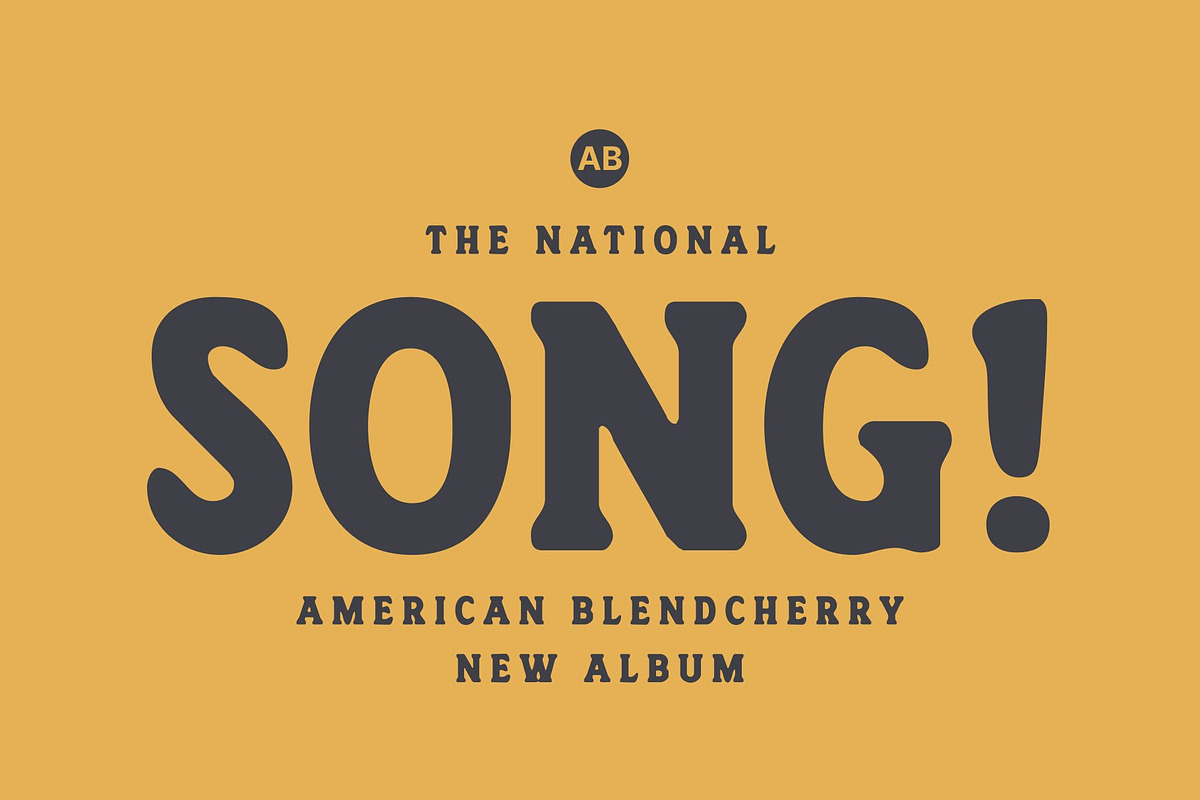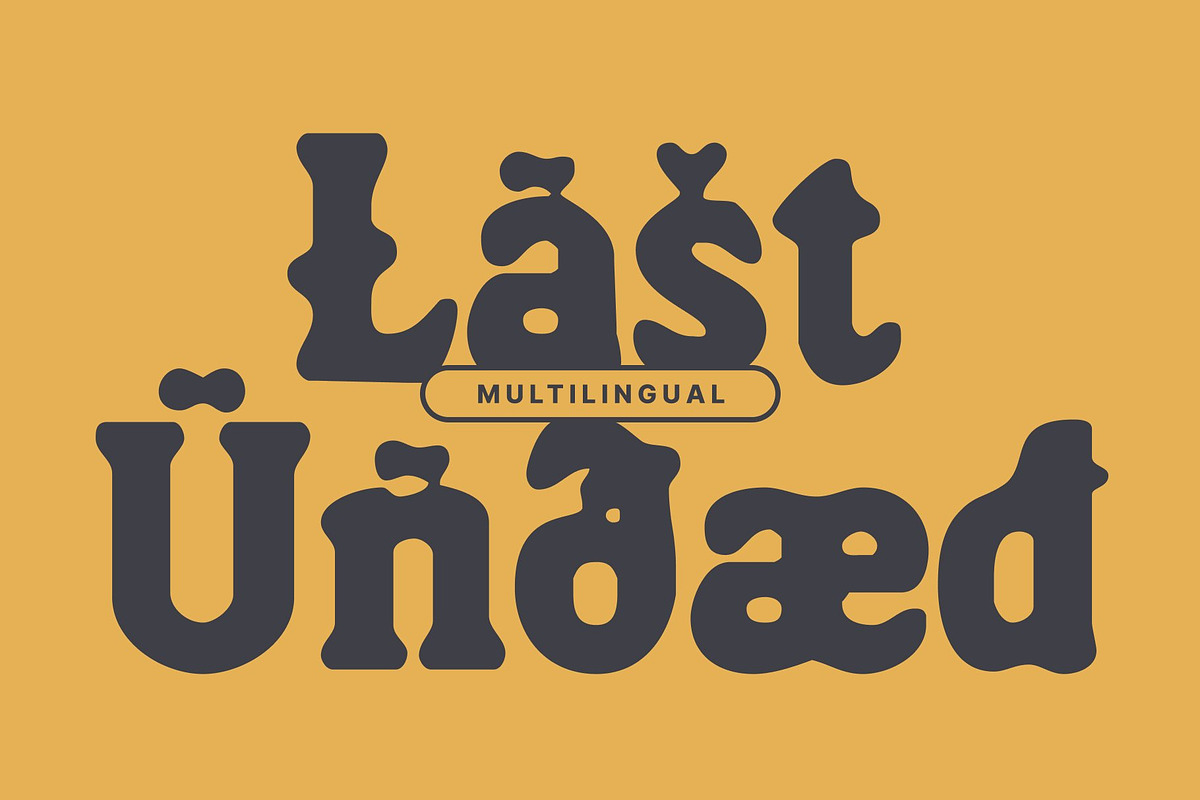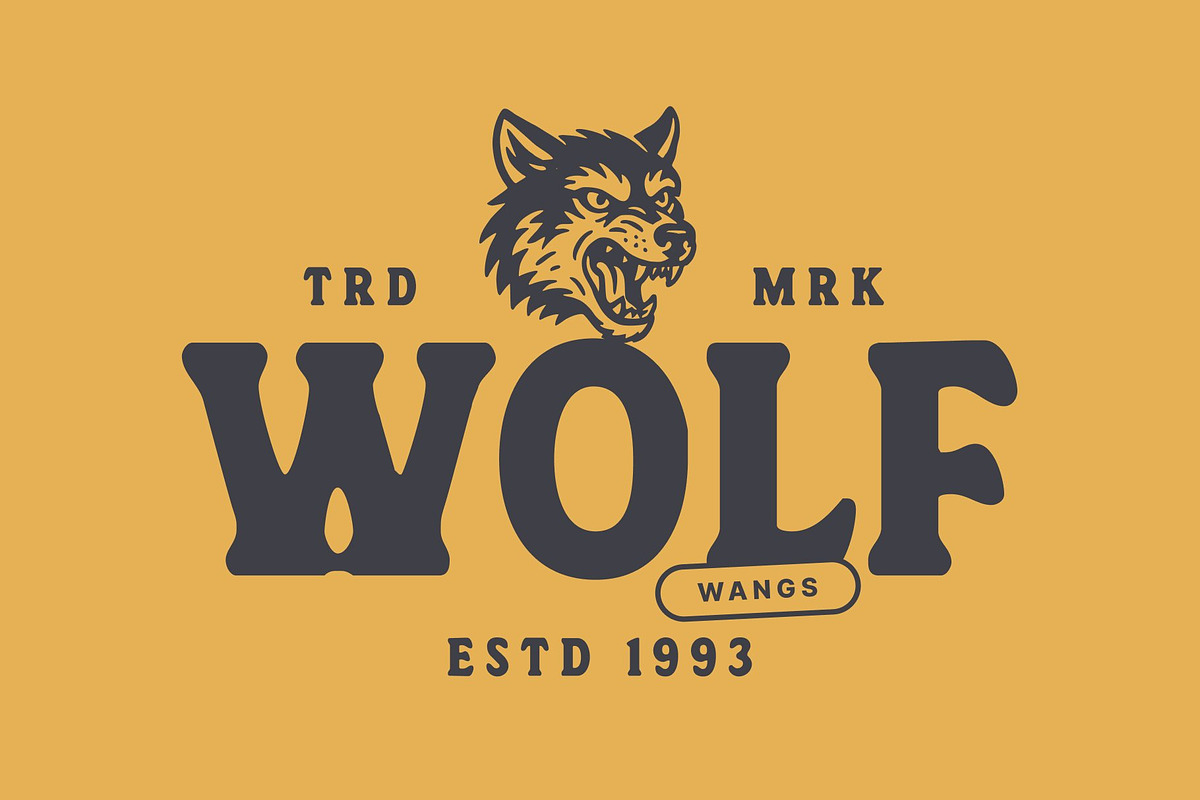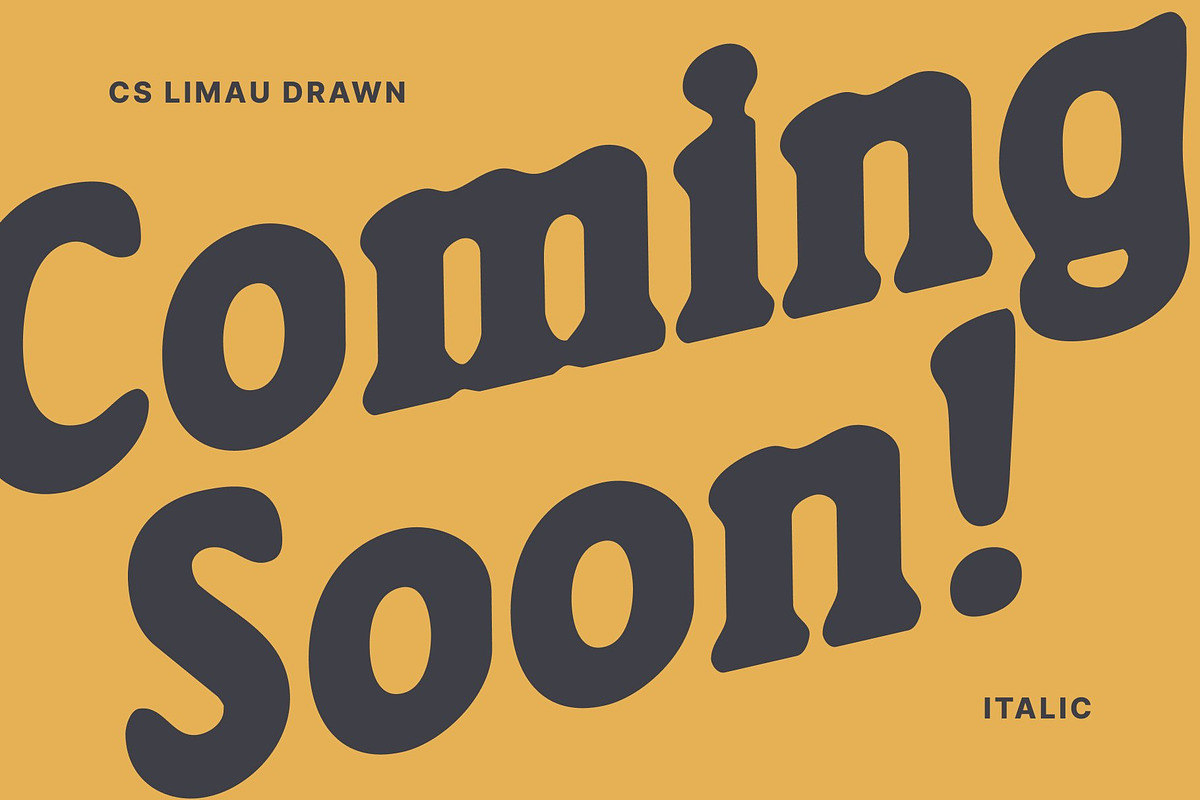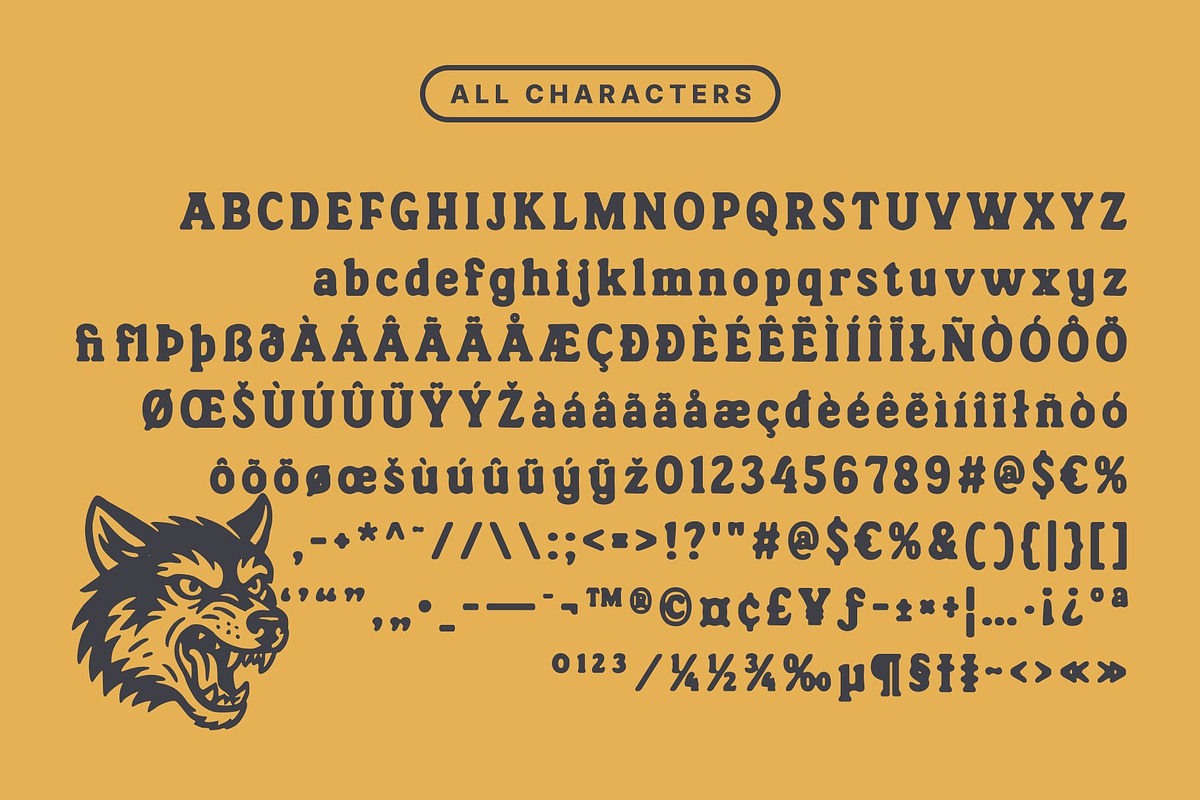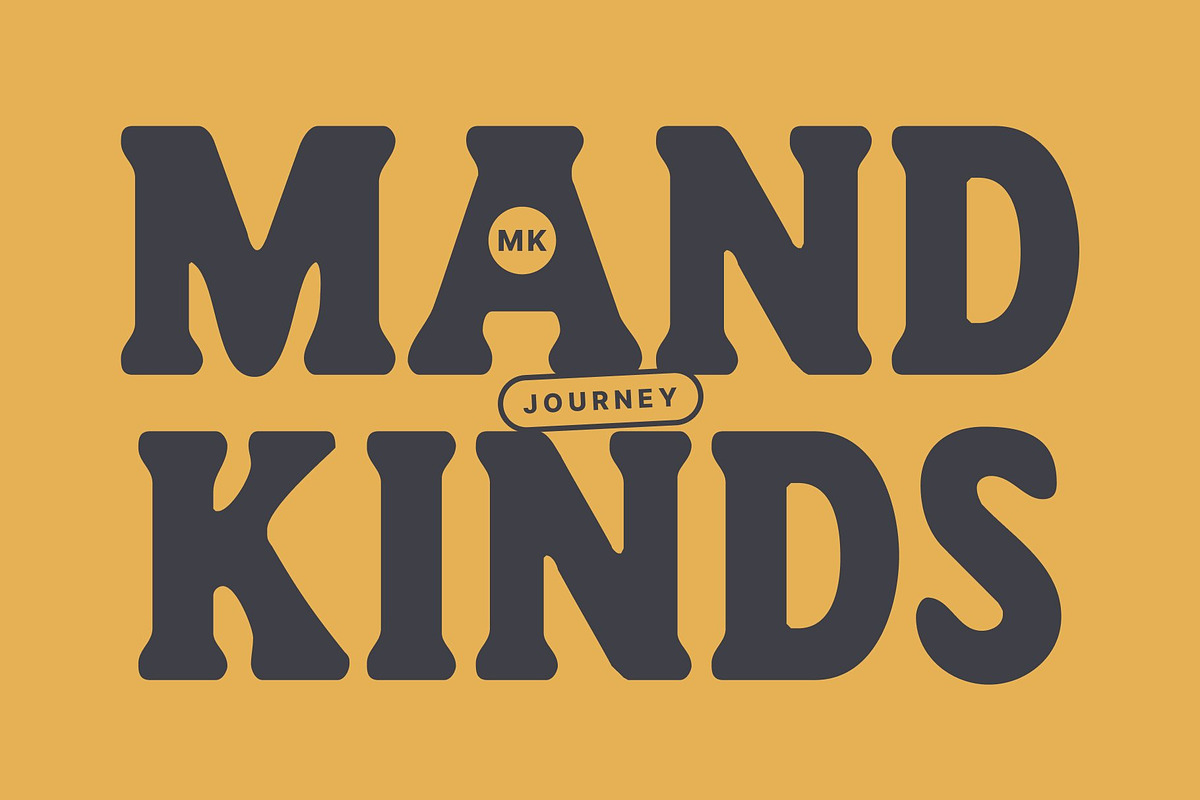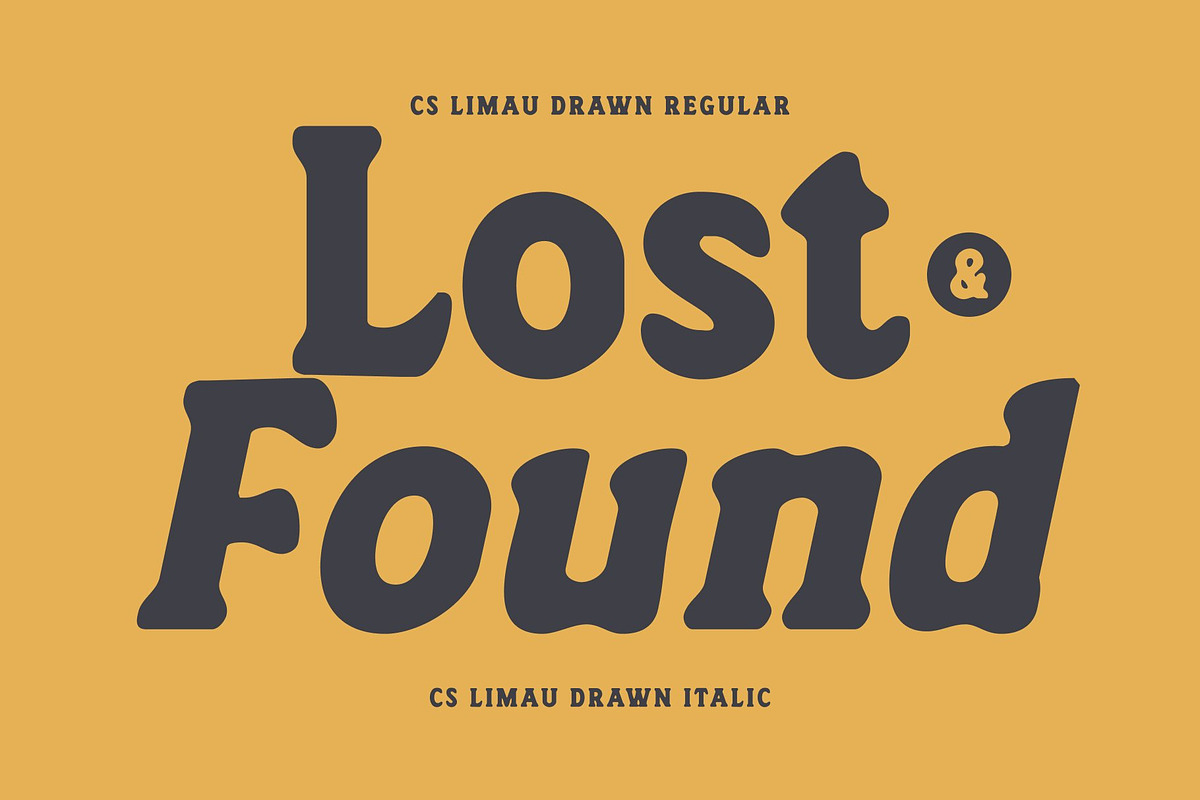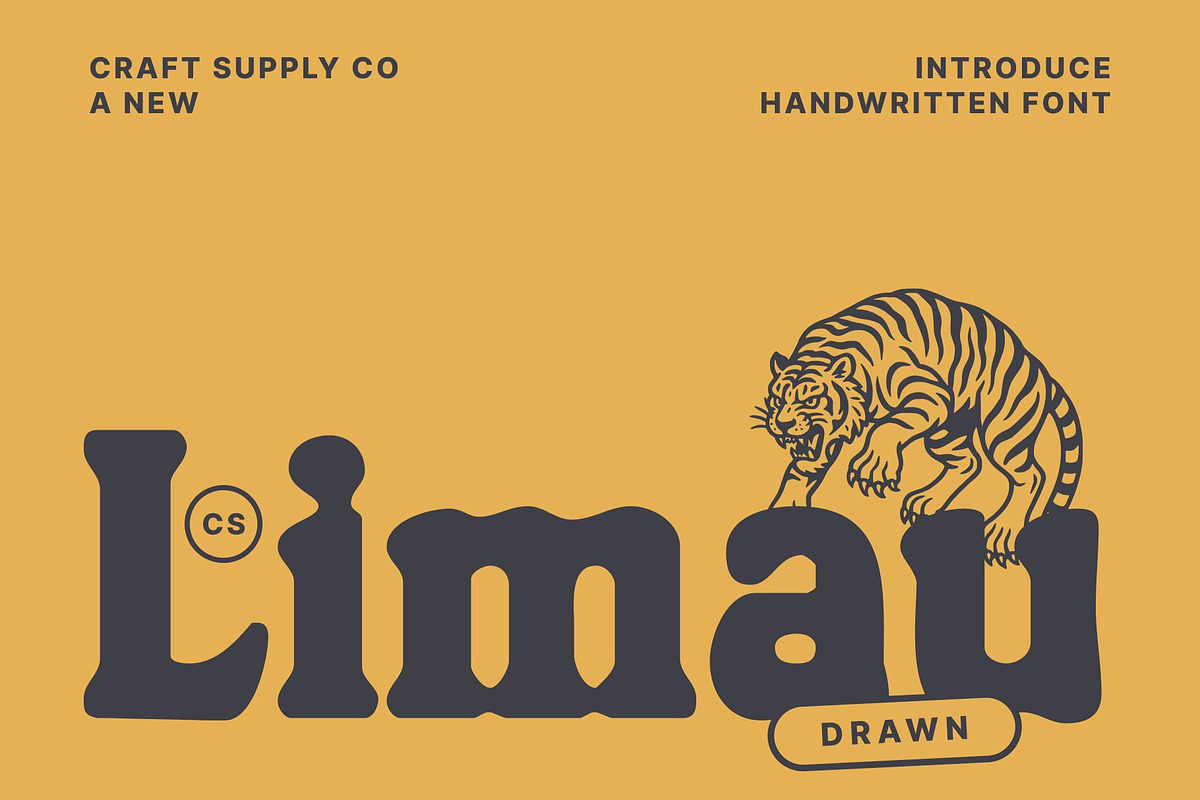
CS Limau Drawn
CS Limau Drawn – Retro Inspired Font with Expressive Handmade Charm
Timeless Retro Design with Playful Energy This is a retro serif font that captures the nostalgic charm of classic typography. Its bold, dynamic shapes evoke the visual spirit of past eras, giving designs a lively, energetic feel that is both memorable and engaging.
Expressive Letterforms with Handmade Texture Enhanced with a drawn effect, this font adds a handcrafted, expressive quality to each character and look stamp style. The subtle imperfections and organic lines give the font personality and warmth, making your text feel vibrant, unique, and full of character.
Bold and Fun for Eye-Catching Designs The strong, playful shapes of this font ensure that your headlines, posters, or branding projects immediately grab attention. Its retro aesthetic combined with expressive texture creates a perfect balance between nostalgia and modern creativity.
Perfect for Branding, Posters, and Retro Campaigns This font excels across a variety of creative applications. From bold branding and poster designs to retro-inspired campaigns, it brings an authentic, playful, and distinctive touch. This font transforms ordinary text into visually striking typography with personality, charm, and expressive style.